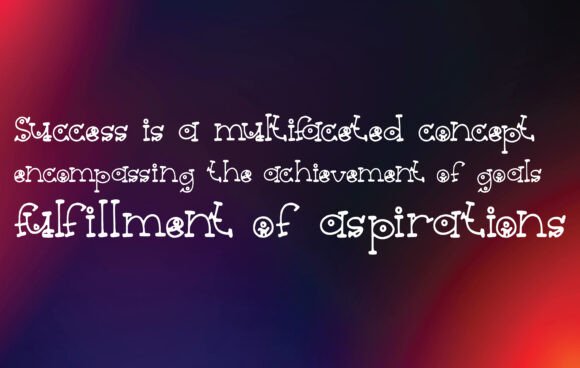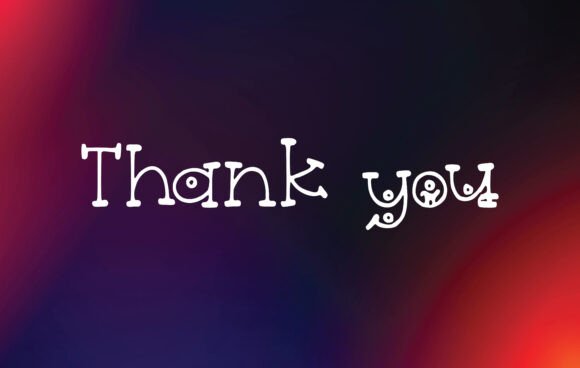
Introduction to Sherri Font
Have you ever found yourself lost in a sea of ideas, struggling to bring your creative vision to life? We’ve all been there – staring at a blank page, searching for the perfect font to give our designs that extra oomph. That’s where Sherri Font comes in – a beautiful, high-quality handwritten font that’s sure to elevate your creative project to new heights.
With its elegant, flowing lines and unique character, Sherri Font is the perfect design resource for anyone looking to create eye-catching logos, branding, and quotes. Whether you’re a seasoned designer or just starting out, this font is sure to be a valuable addition to your toolkit – and the best part? It’s available for free download, complete with a transparent background that makes it easy to customize and integrate into your design.
Key Features of Sherri Font
- High-quality, professional design suitable for creative projects and presentations.
- Transparent background for easy customization and seamless integration with designs.
- Perfect for use in digital design, including graphics, logos, and icons, due to its clear resolution.
- Comes in a single weight, making it ideal for projects requiring a consistent design aesthetic.
- Designed to be versatile and adaptable for a range of creative projects, from branding to web design.
Honest Review: Sherri Font
I recently stumbled upon the Sherri Font, and I must say it’s a fantastic addition to any designer’s toolkit. This free download offers high-quality typography that’s perfect for creative projects requiring a touch of elegance.
Here are some aspects that work well for the Sherri Font:
- ✨ Elegant and sophisticated design aesthetic
- ✨ Smooth, rounded edges that add to its appeal
- ✨ Transparent background makes it easy to integrate into any design
- ⚠️ Limited font sizes and styles available
- ⚠️ Not suitable for projects requiring bold or dramatic typography
Overall, I’m quite impressed with the Sherri Font. Its high-quality design and transparent background make it a great resource for designers working on creative projects. While it may have its limitations, it’s definitely worth considering for your next design project.
Getting the Most Out of Sherri Font
Experiment with different font sizes, colors, and styles to get the most out of Sherri Font. Use it in combination with other design elements, such as images or shapes, to create visually appealing designs. With a little creativity, Sherri Font can elevate your designs and make them truly stand out.
Common Use Cases for Sherri Font
Sherri Font is perfect for a variety of creative projects, including social media graphics, posters, flyers, business cards, brochures, and presentations. Its high-quality design and transparent background make it a versatile and valuable design resource.